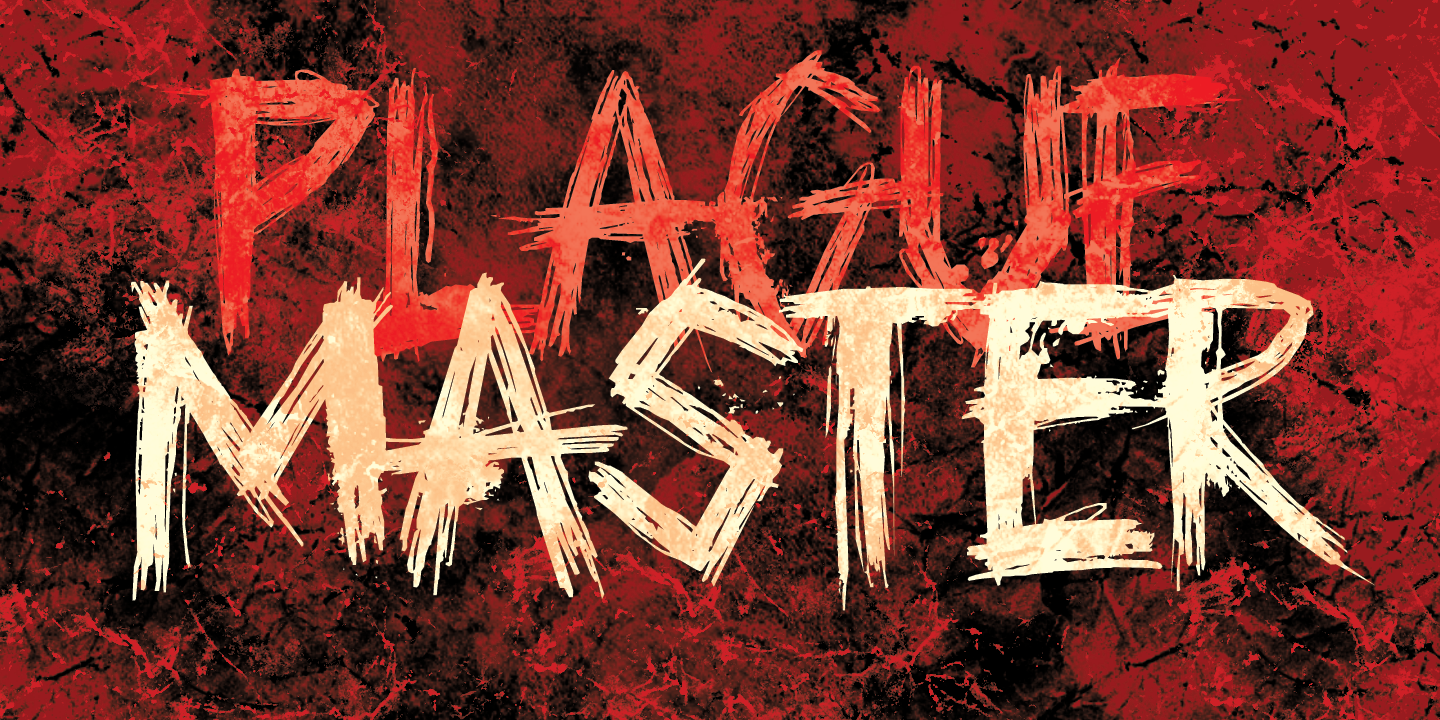
Unleash a bold, rebellious vibe with the Plague Master Font Free Download, a grunge-style typeface designed by David Kerkhoff. This font is available for free download for testing purposes, but you must purchase it for commercial use. Its jagged, distressed look is perfect for designers aiming to create edgy, attention-grabbing visuals.
The Plague Master Font is ideal for horror-themed designs, punk rock album covers, Halloween posters, edgy branding, and video game graphics. Its chaotic, hand-drawn style adds a raw, rebellious energy to any project, making it stand out in both digital and print formats.
What makes the Plague Master Font Free Download exciting is its unique plague doctor-inspired imagery and gritty aesthetic, evoking a dark, intense atmosphere. The tight spacing and irregular letterforms amplify its menacing, artistic appeal, perfect for bold statements.
The Plague Master Font family includes Regular and Italic styles, offering versatility for creating dynamic, thematic designs. These variations allow designers to mix and match for impactful typography in various creative contexts.